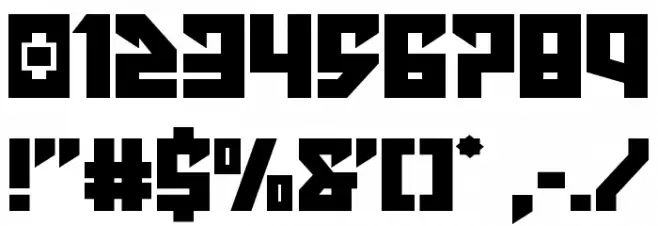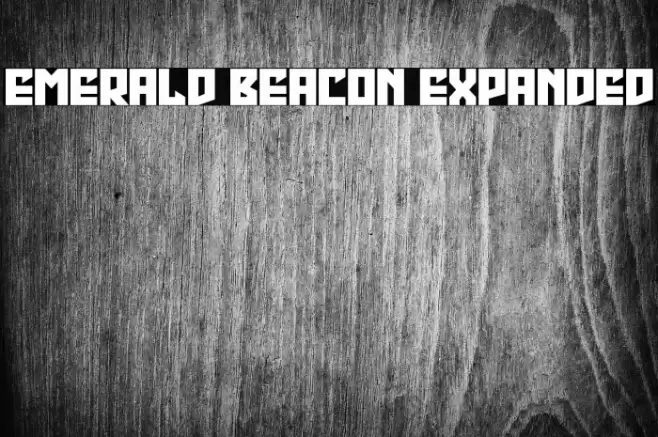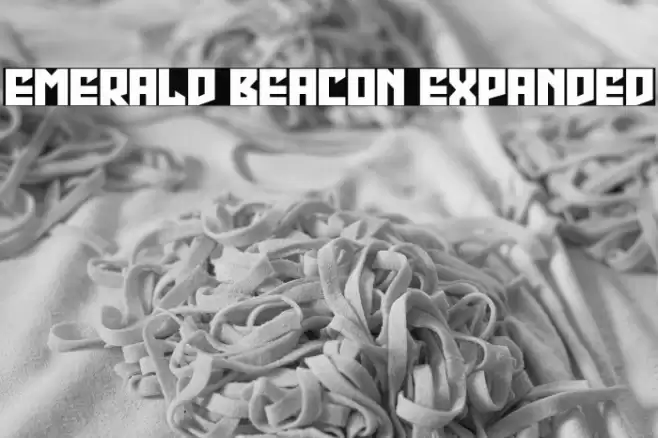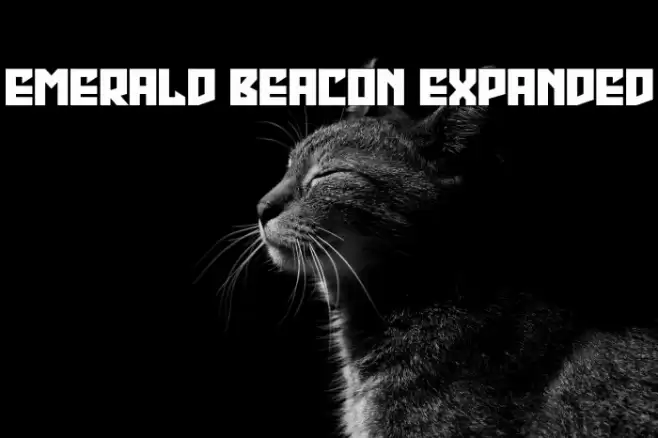
Emerald Beacon Expanded Font
Emerald Beacon Expanded Description
This font features a bold, geometric style with sharp angles and a futuristic aesthetic. The characters are designed with a blocky structure, creating a strong visual impact. The uppercase and lowercase letters maintain a consistent height, contributing to a uniform appearance. The numerals and special characters follow the same angular design, ensuring cohesion across all elements. This font's expanded width and heavy weight make it ideal for attention-grabbing headlines and logos. Its unique style is both modern and edgy, suitable for projects that require a bold statement.
A bold, geometric font with sharp angles and a futuristic style from Uncategorized fonts.
- Proposed Projects: Ideal for branding, posters, video game titles, and sci-fi themed designs.